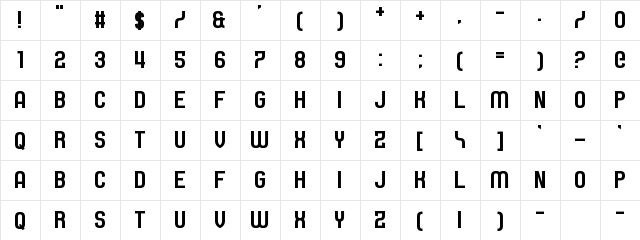
Septacharge Regular
| Designer | Allison James |
Design Context for Septacharge Typeface
Septacharge offers clean, dependable letterforms without strong stylistic allegiance, making it a practical choice for designers who need flexibility.
Pro Tip: Use Septacharge in both headline and body roles to test its range before committing to a single application.